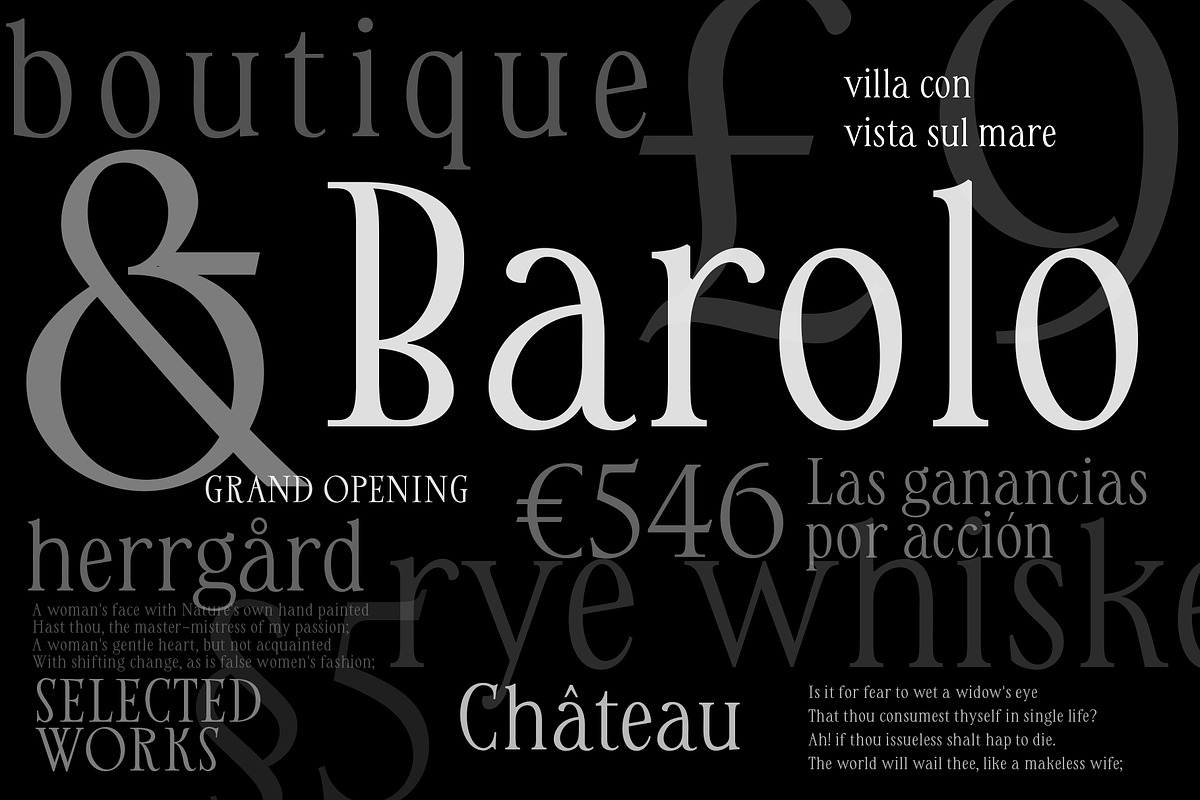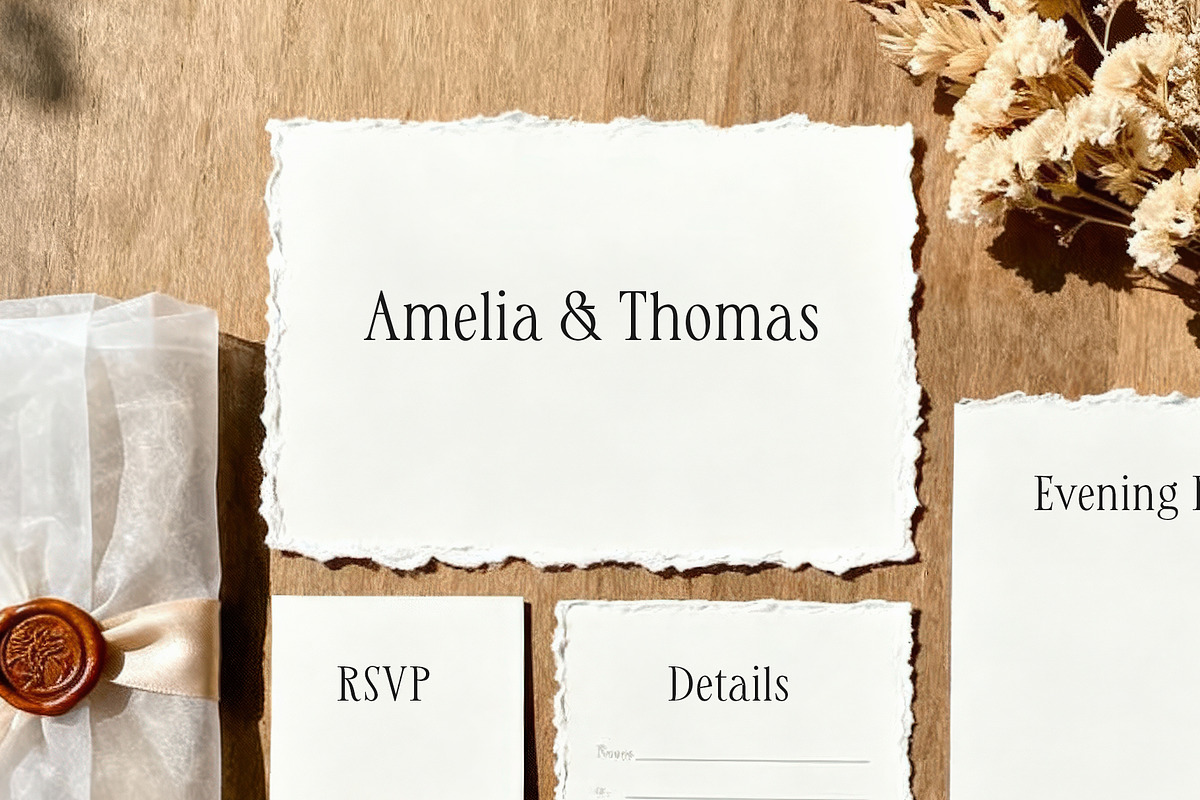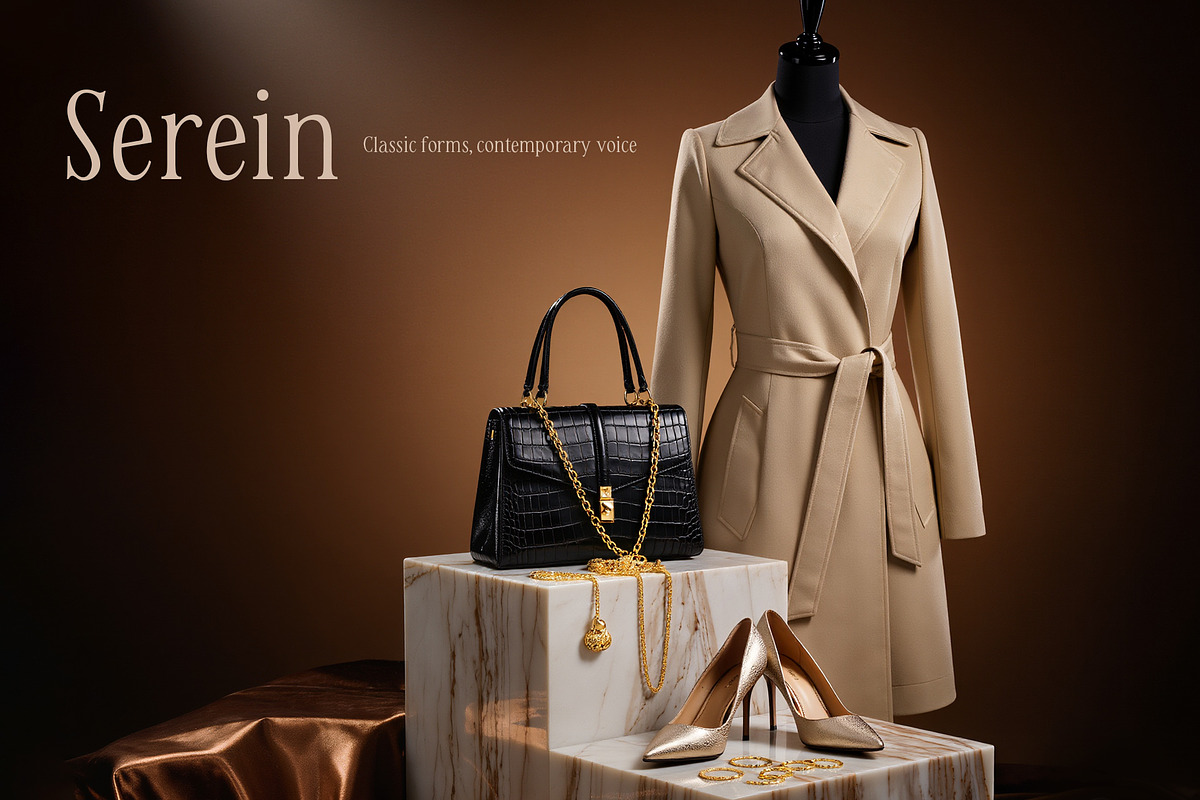
Rebus — Modern Classic Serif
Rebus is a modern classic serif crafted for editorial headlines, luxury branding, and premium packaging, combining elegant high‑contrast strokes with refined, readable proportions for a timeless yet contemporary voice. Use it for magazines, fashion logos, labels, and wedding stationery where sophisticated character, clean rhythm, and crisp numerals matter most.